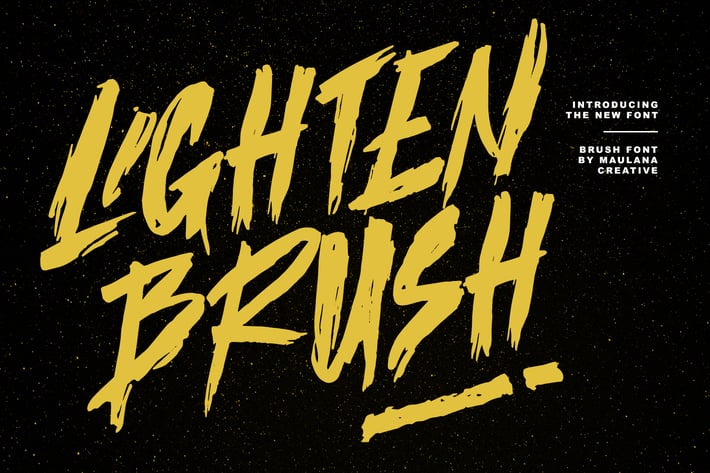
Lighten Brush Display Font
Give your designs an authentic brush handcrafted feel. “ Lighten” is perfectly suited to signature, stationery, logo, typography quotes, website header, branding and more.